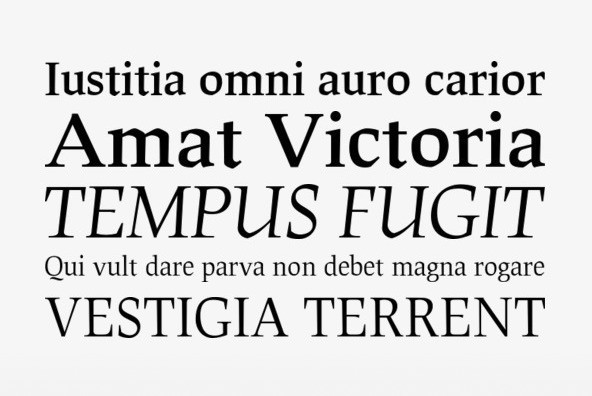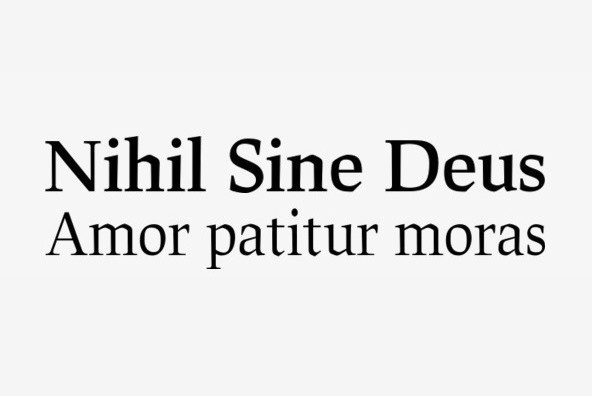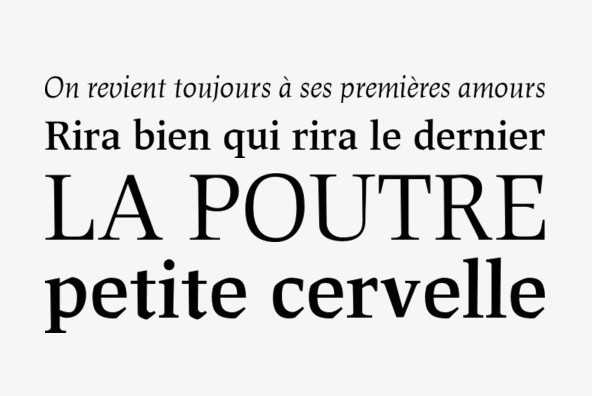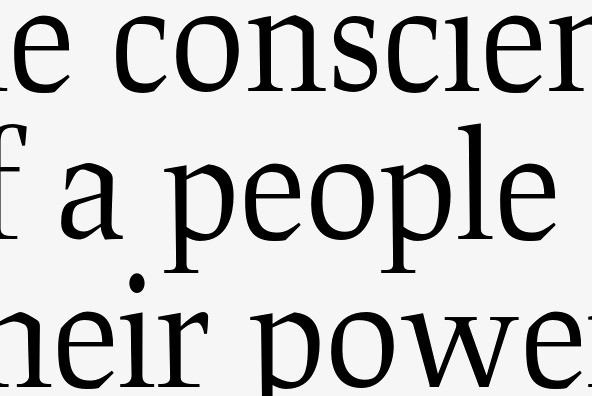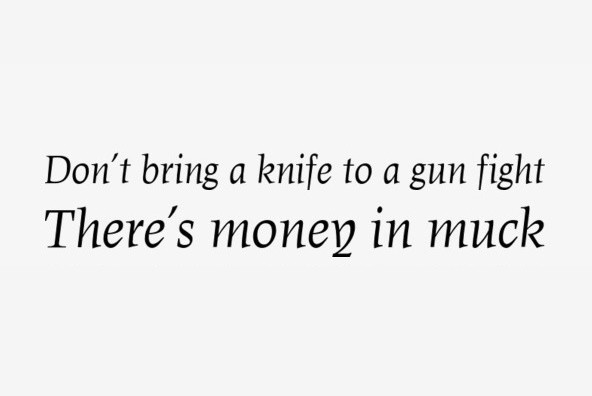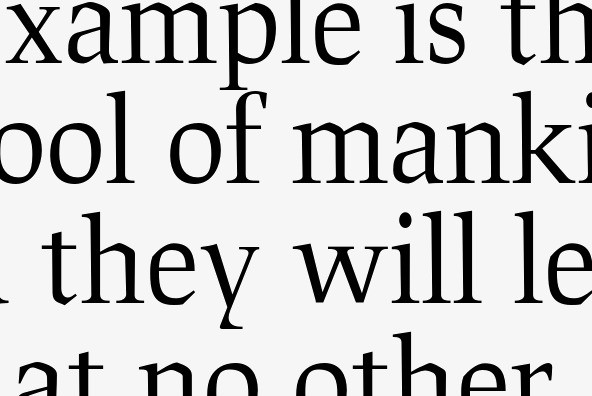
Lipsia Pro
Foundry: RMU Typedesign
An RMU redesigned font family of Kapr’s Leipziger Antiqua which was extended for multilingual use, and added small caps and oldstyle figures.